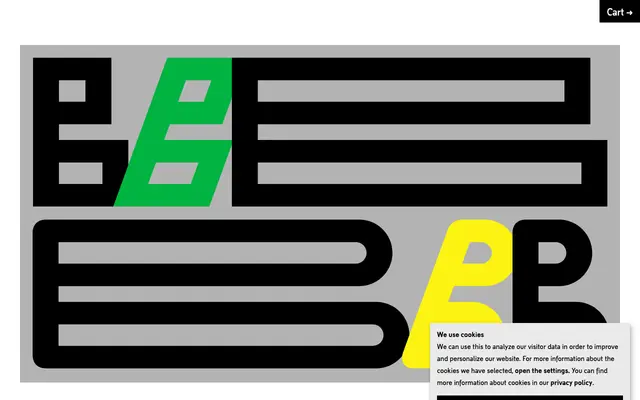
Balkenschrift Rounded
A modular geometric sans built on a horizontal-bar construction principle, offered in both sharp and rounded terminal variants across five weights, four widths and matching italics.
The family takes its name from the German word for a bar or beam letterform, with every character built from strict horizontal strokes. Balkenschrift Rounded softens those terminals while retaining the underlying grid logic, and the full family spans four static widths from standard to Ultra Wide, each included at no extra cost with any weight purchase. Both Balkenschrift and Balkenschrift Rounded are also available as variable fonts with weight, slant and width axes, though the two subfamilies cannot interpolate between each other.
Balkenschrift Rounded is a geometric sans built on a strict horizontal-bar construction principle, with the Rounded subfamily softening terminals; the overall architecture is systematically geometric rather than humanist or grotesque.